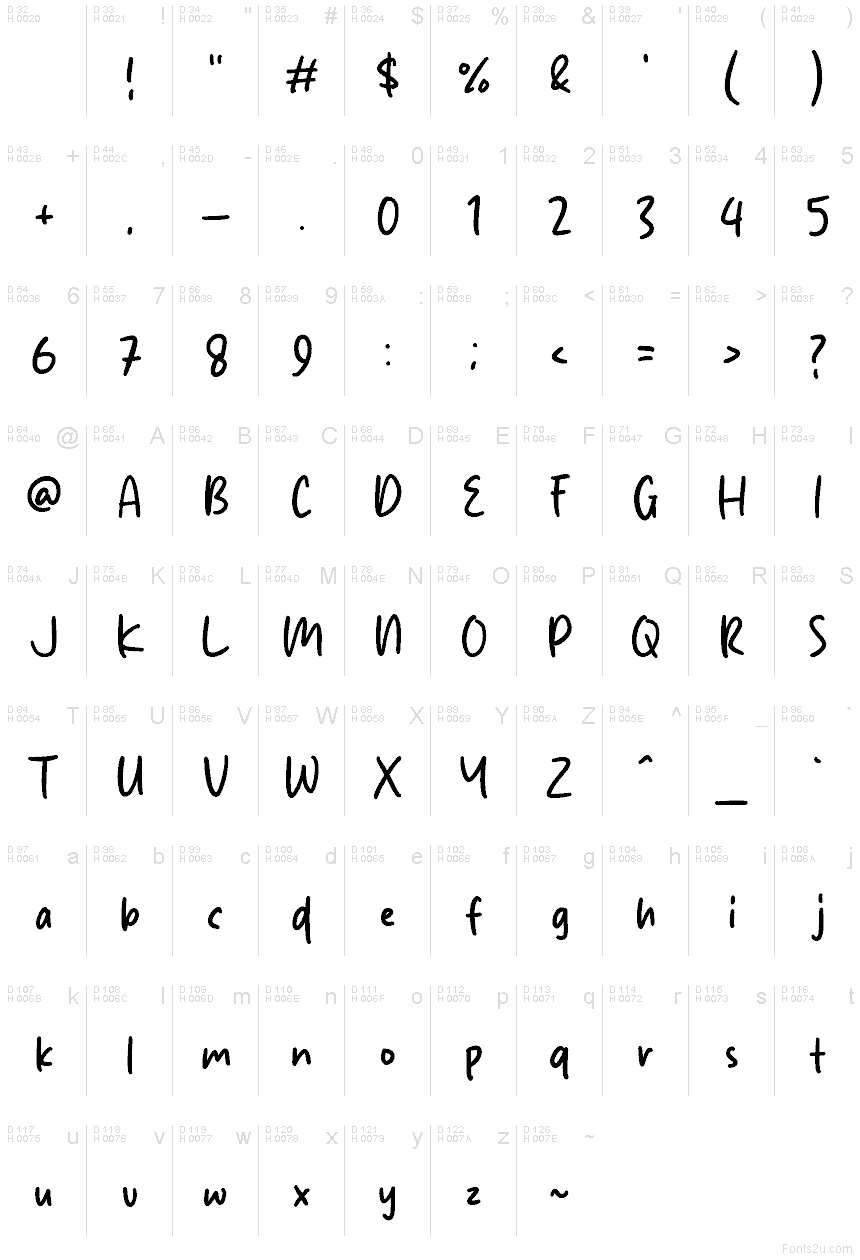
Sticky Chicken
Sticky Chicken font, designed by MJType, is a handwritten typeface that combines a casual and expressive hand-drawn aesthetic with modern applications in mind. Its friendly appearance makes it inviting and approachable with each letter being in itself an artistic brush stroke. The unique vibe translates into one exceptional overall visual result embracing creativity.
This free handwritten font is best used in branding, marketing, and product packaging for foods! But don’t stop there because it’s also stylish whenever used on greeting cards, quotes posters, book covers, album art designs (musicians), social media content etc.